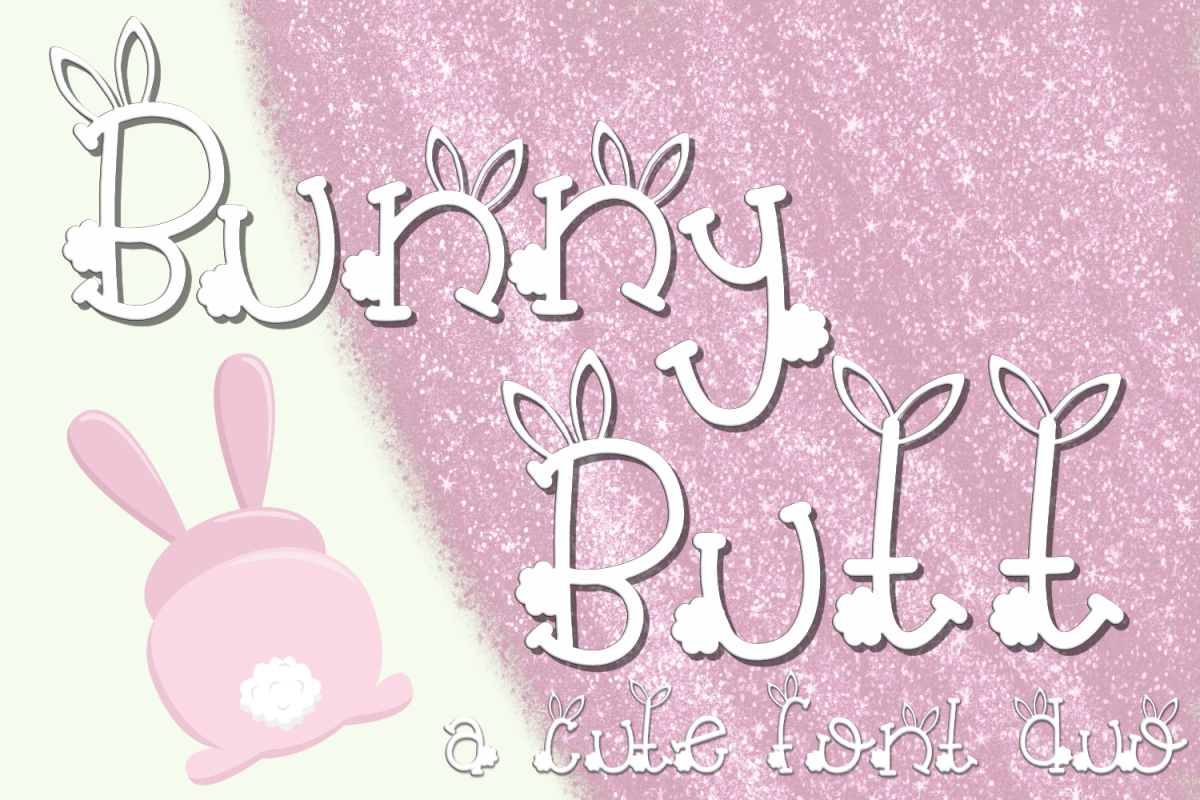
Bunny Butt Font Duo
Introducing Bunny Butt!
A cute font duo!!!
The cutest font I've ever laid eyes on. There's only one font I need this Easter-- this one.